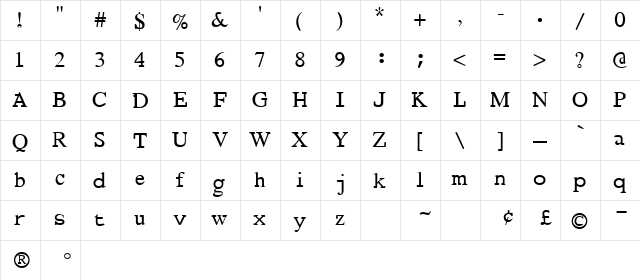
Regeneration X Regular
Design Context for Regeneration X Typeface
Regeneration X takes a measured approach to typography — its balanced proportions and neutral character make it a reliable workhorse for both digital and print work.
Pro Tip: Use Regeneration X in both headline and body roles to test its range before committing to a single application.